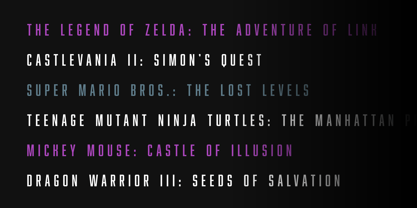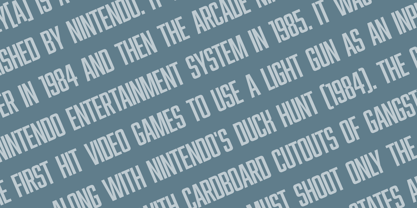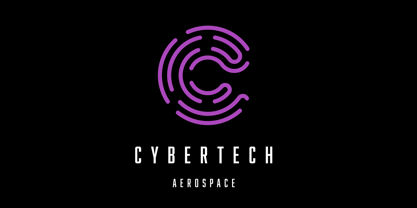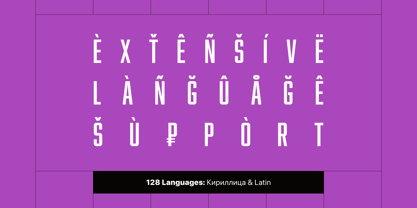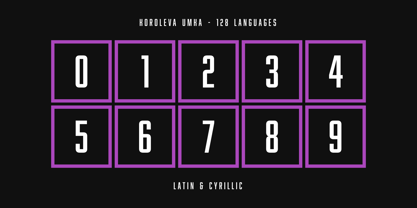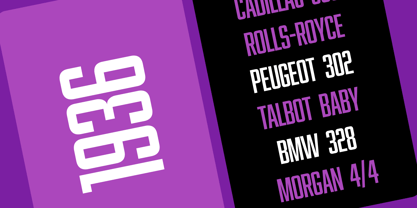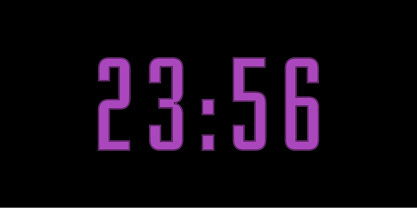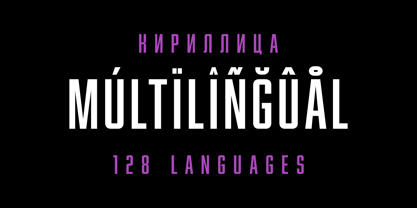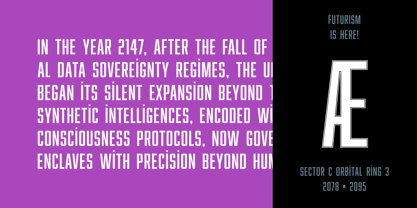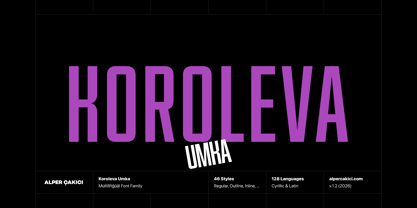
Koroleva Umka
by AlperCakici
Koroleva Umka is a bold, expressive sans serif typeface designed for strong visual impact. With its tall proportions, clean construction, and confident rhythm, it works beautifully for headlines, branding, posters, packaging, and editorial design. The design balances geometric clarity with playful character, allowing it to feel both modern and energetic. Koroleva Umka offers an extensive family of stylistic variations that provide designers with exceptional flexibility. From smooth circular forms to sharper angular structures, each style explores a different personality while maintaining a unified visual identity. Rounded styles create a softer and more approachable tone, while angular styles introduce sharper edges and stronger graphic presence. The family also includes textured variations such as Brush, Pencil, Rough, Noise, and Eroded, giving the typeface a handcrafted and expressive feel. These styles are ideal for projects that require personality and character, including posters, music artwork, social media graphics, and experimental branding. Inline styles add decorative detail suitable for display typography, while Circular variants introduce balanced shapes that enhance visual harmony in layouts. Italic versions bring motion and dynamism, making the family versatile for layered typographic compositions. Koroleva Umka supports a wide Latin-based language set, making it suitable for international design work. The character set includes support for numerous European and global languages, ensuring accessibility for a broad audience. With its large collection of stylistic instances—from clean and minimal to textured and expressive—Koroleva Umka gives designers a powerful toolkit for creative typography. Whether used for bold titles, dynamic branding systems, or eye-catching posters, it delivers personality, clarity, and versatility.